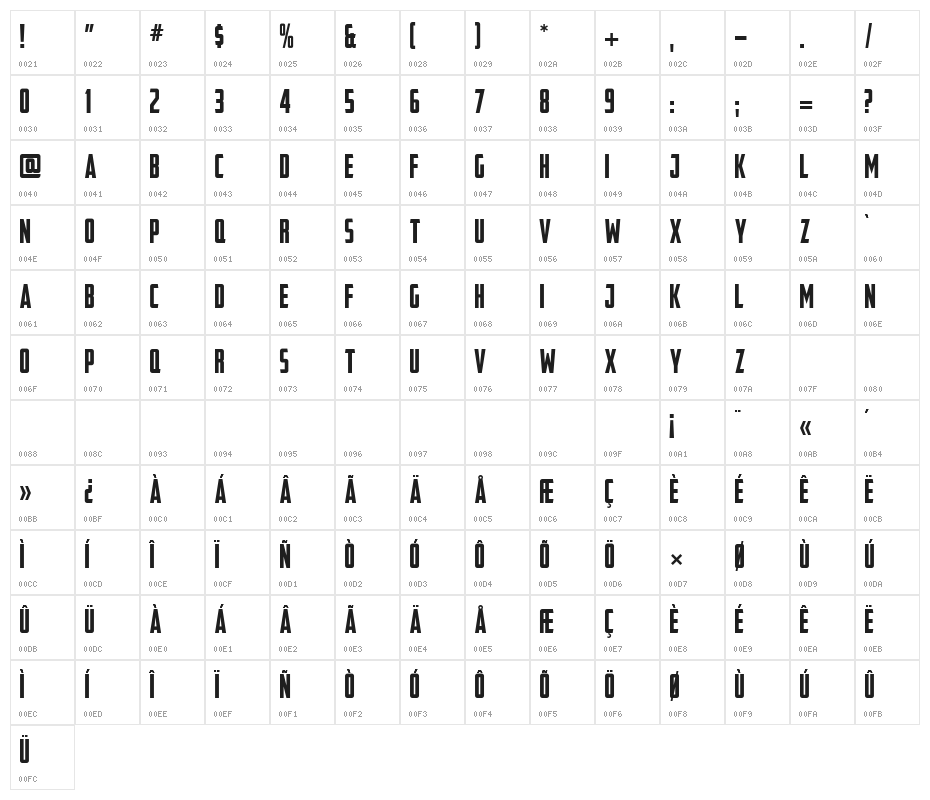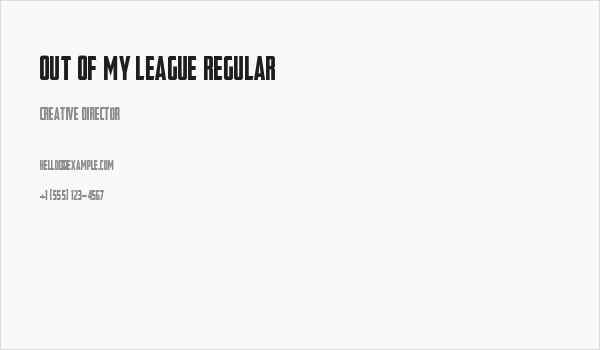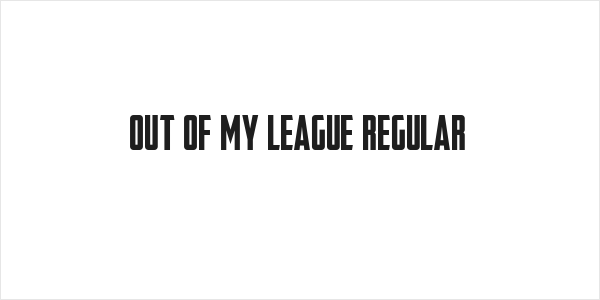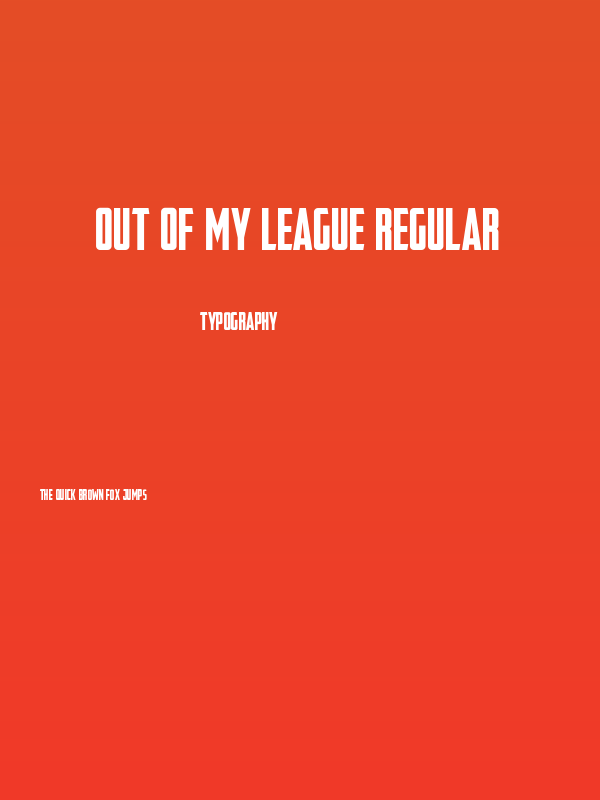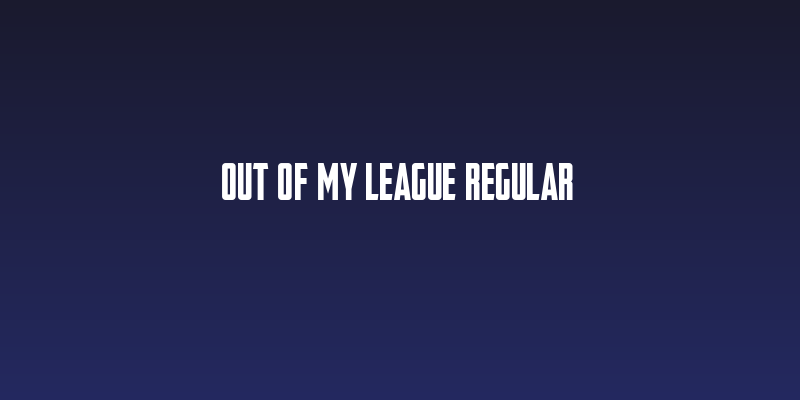
Out Of My League Regular Font
Out Of My League Regular Description
This font features a bold and impactful design with strong geometric shapes and a modern aesthetic. The uppercase letters are tall and narrow, creating a sense of height and power. The characters are tightly spaced, enhancing the boldness of the design. The numbers and special characters maintain the same bold and structured style, ensuring consistency across all elements. This font is well-suited for projects that require a strong visual presence and a contemporary feel.
| Proposed Projects | Ideal for headlines, posters, branding, and any design that requires a strong visual impact. |